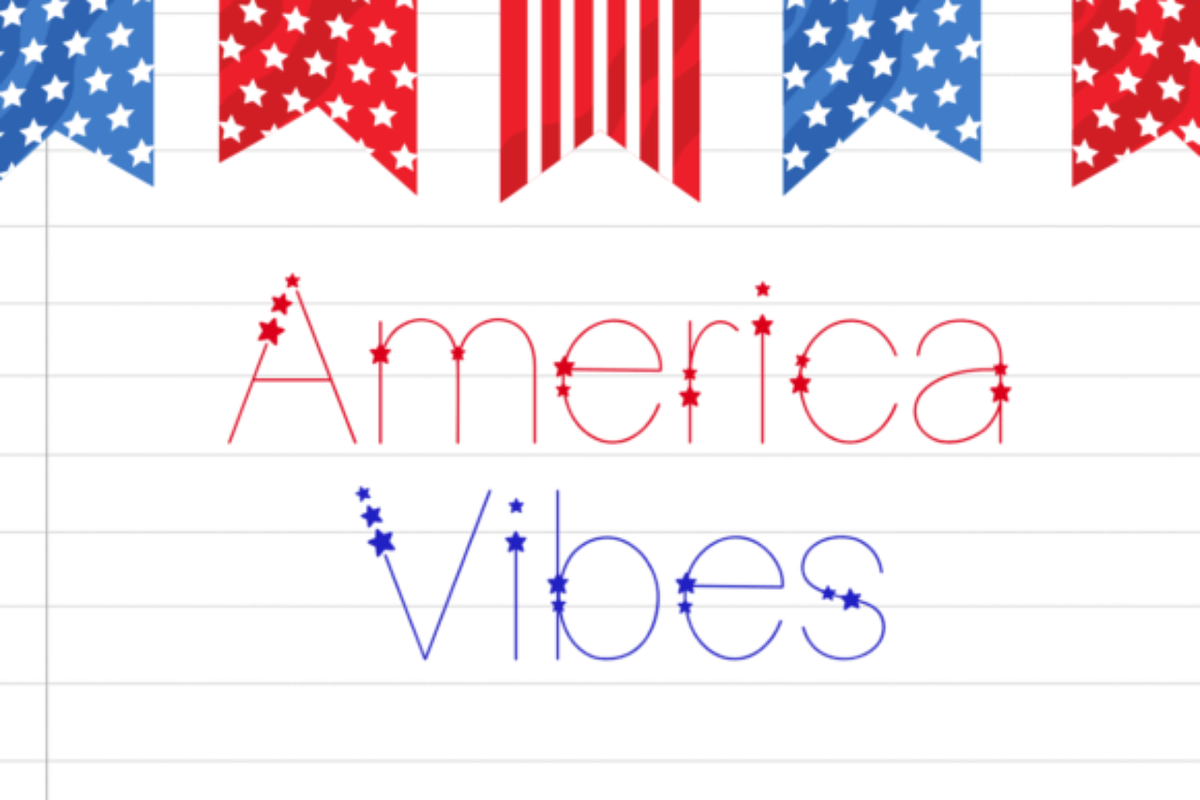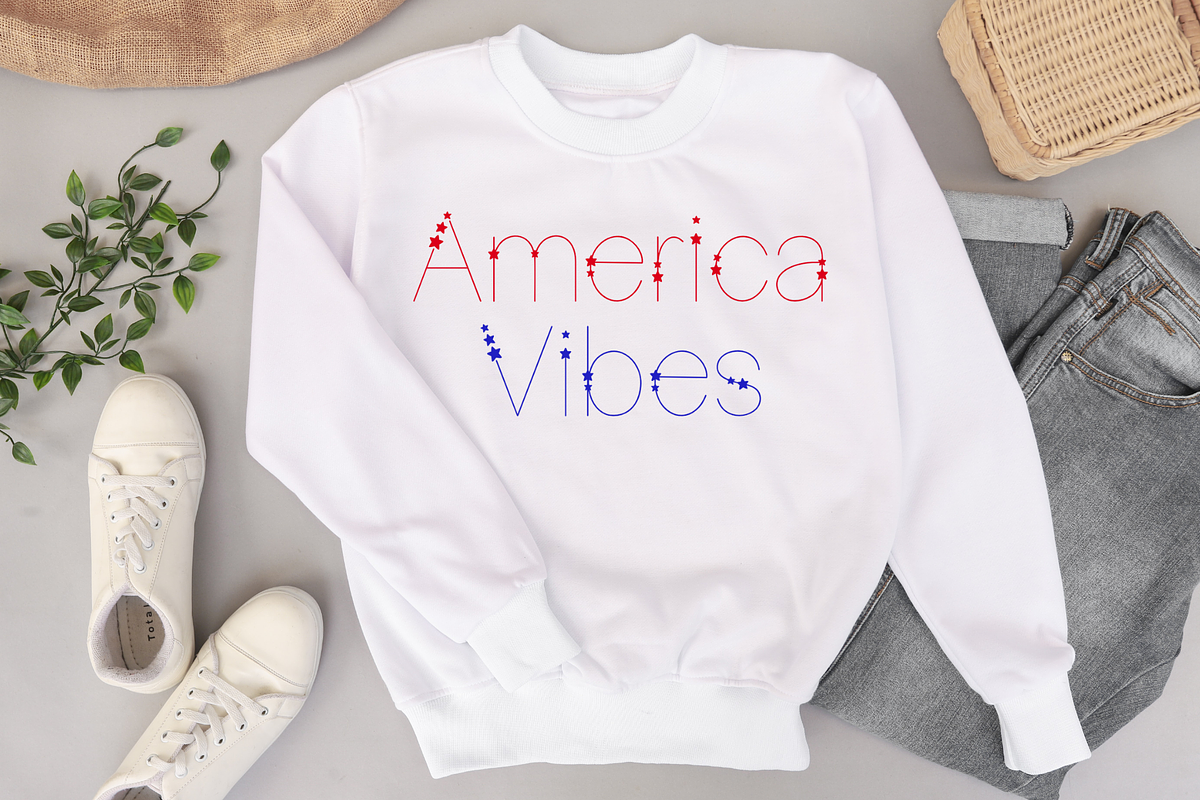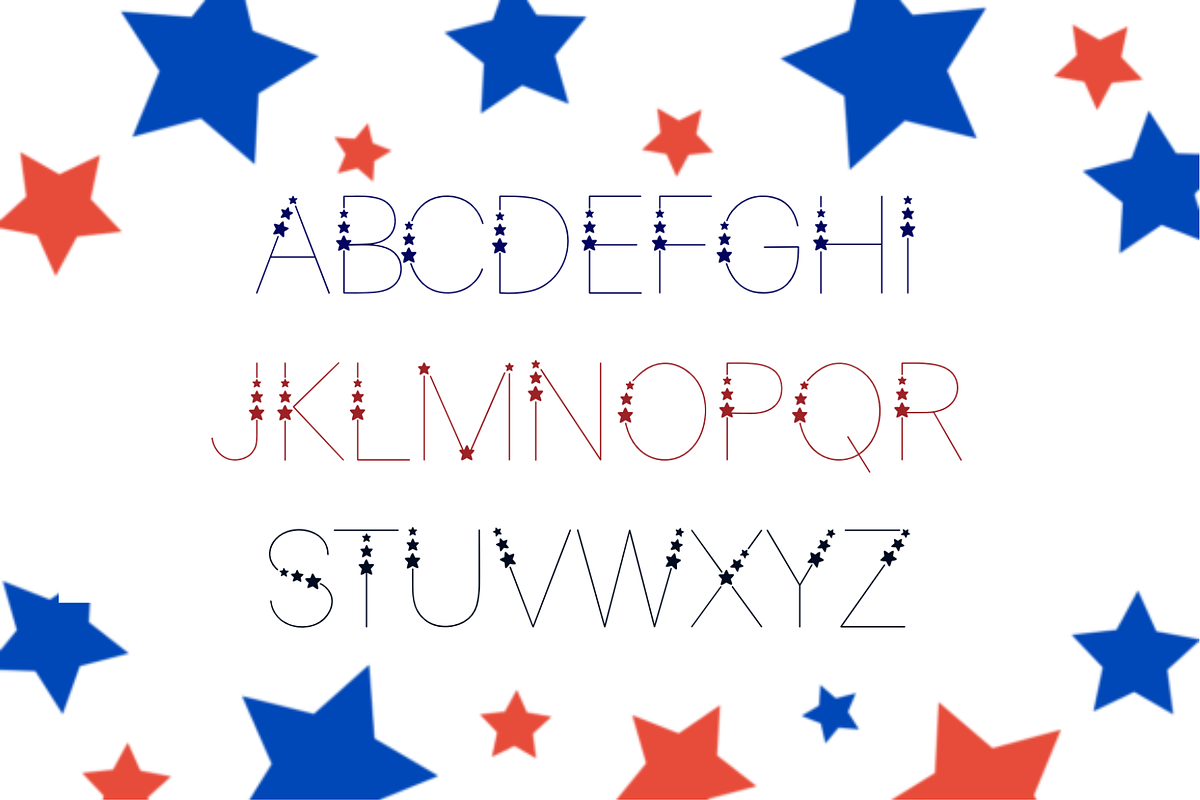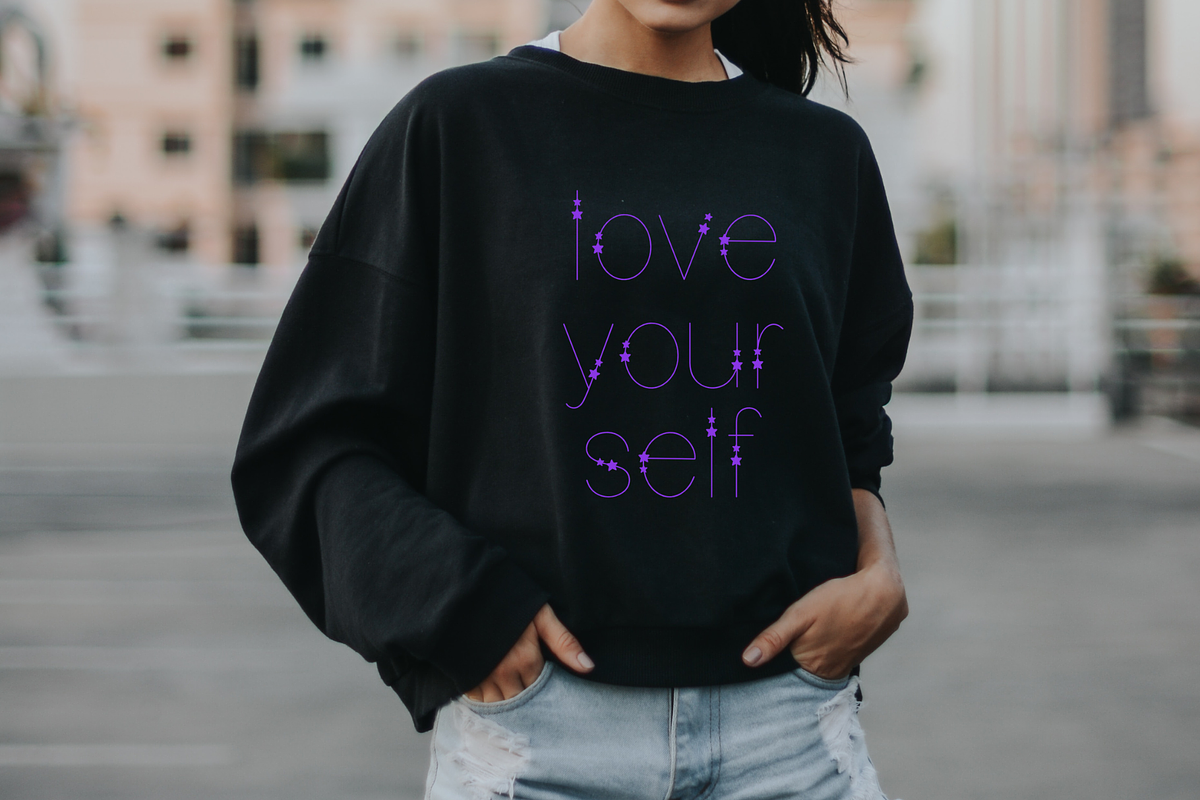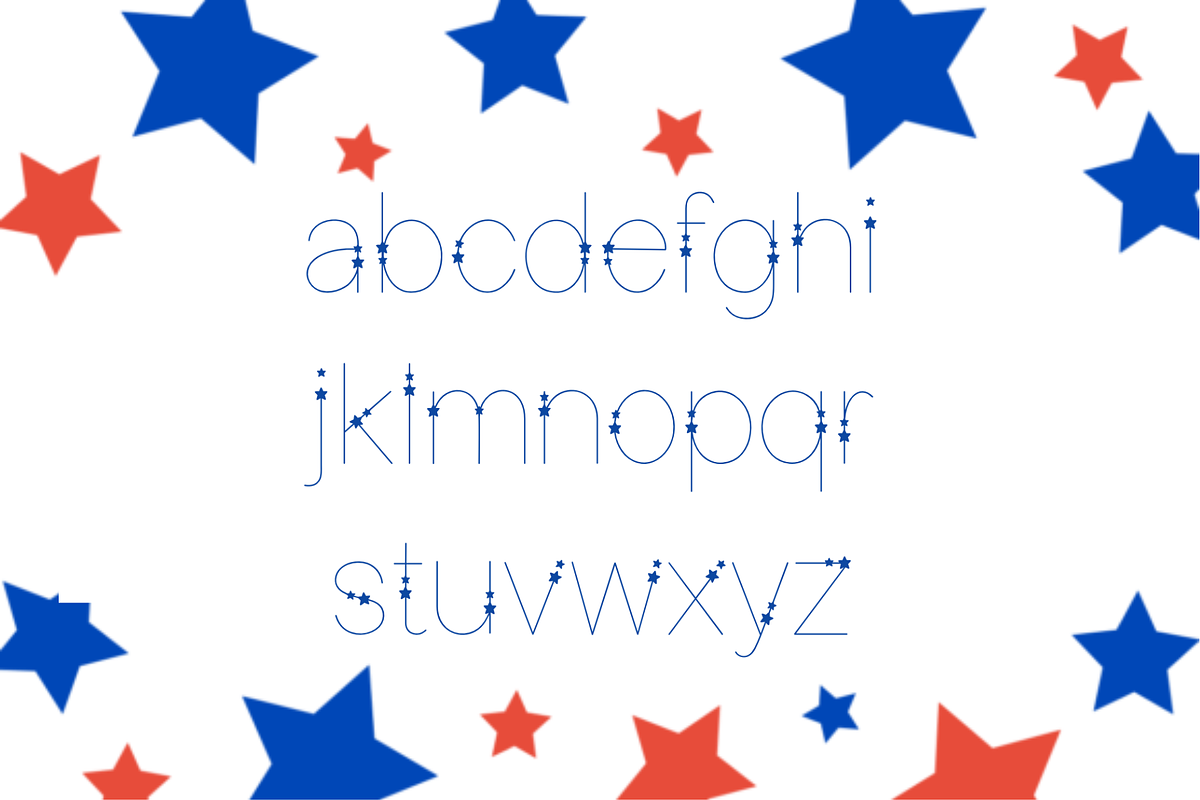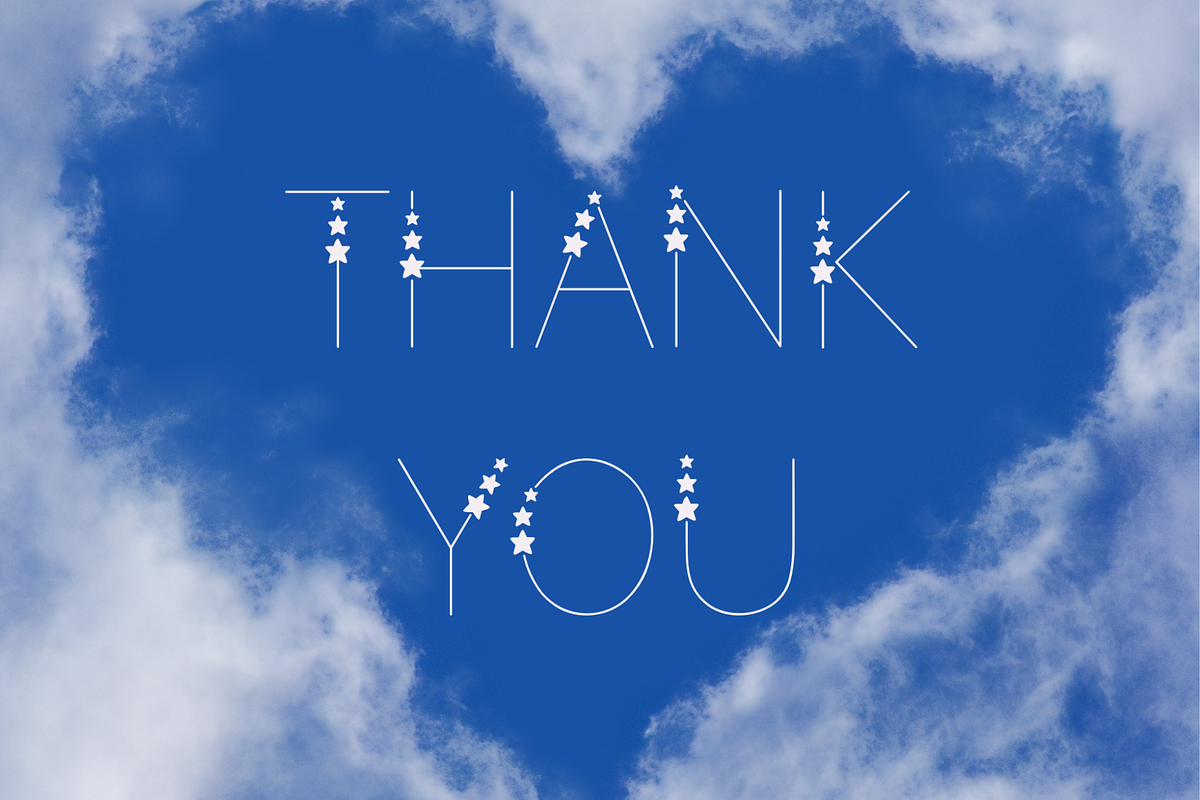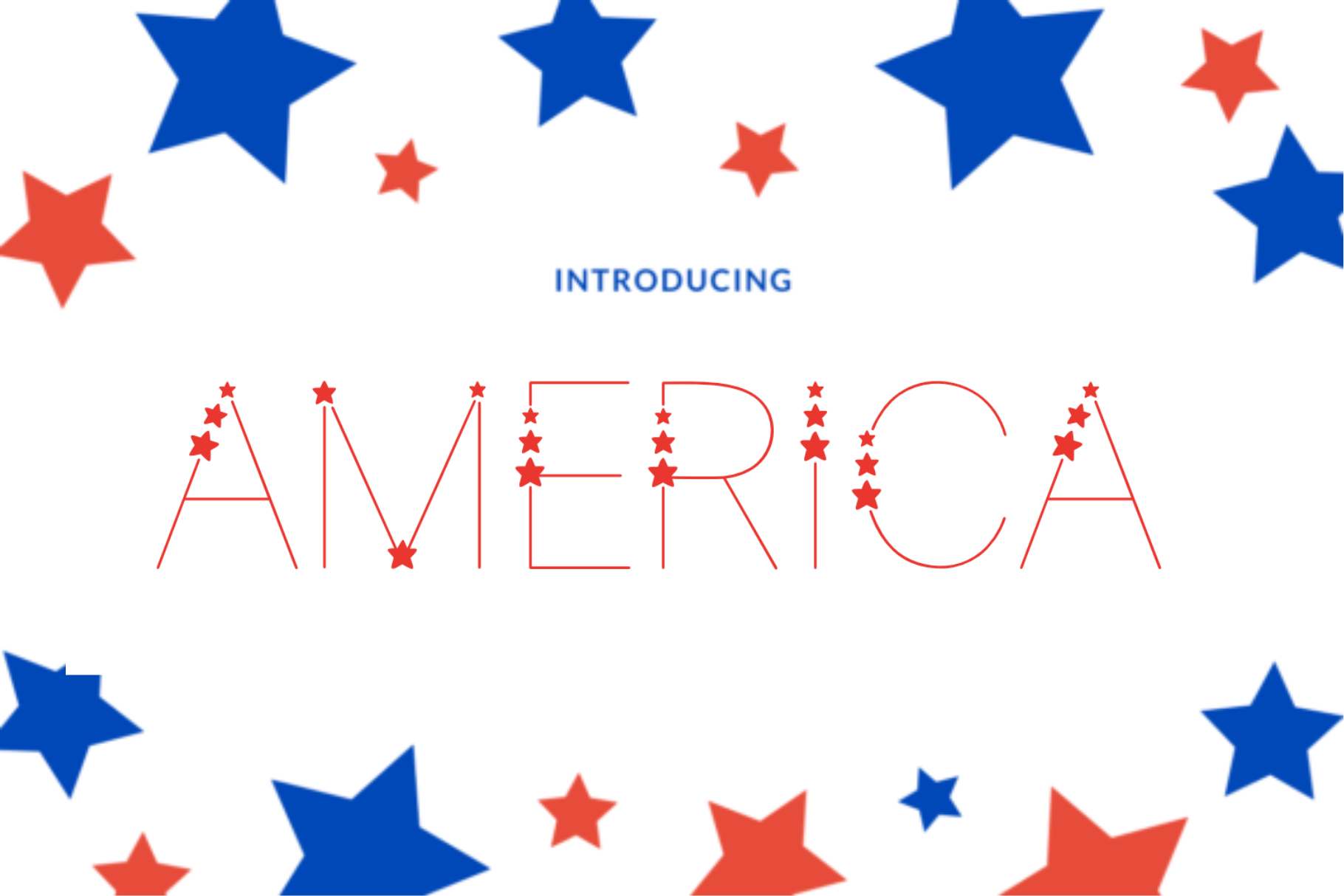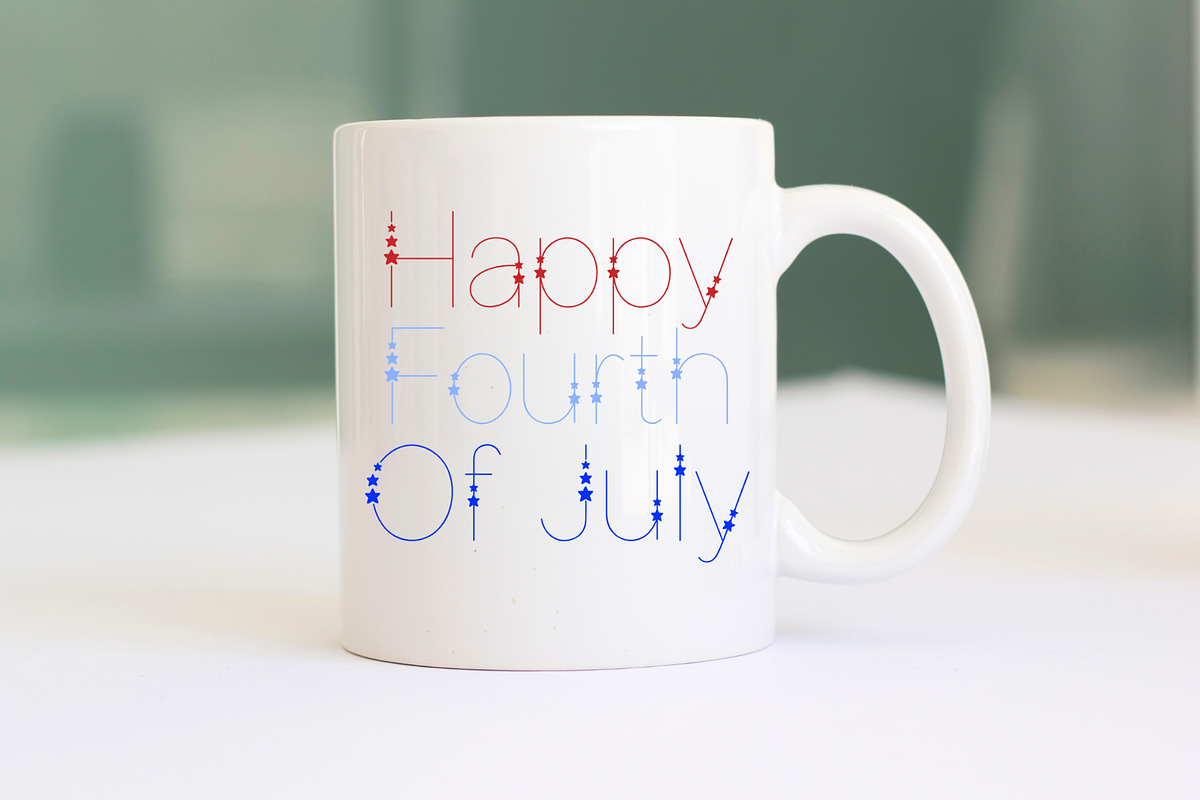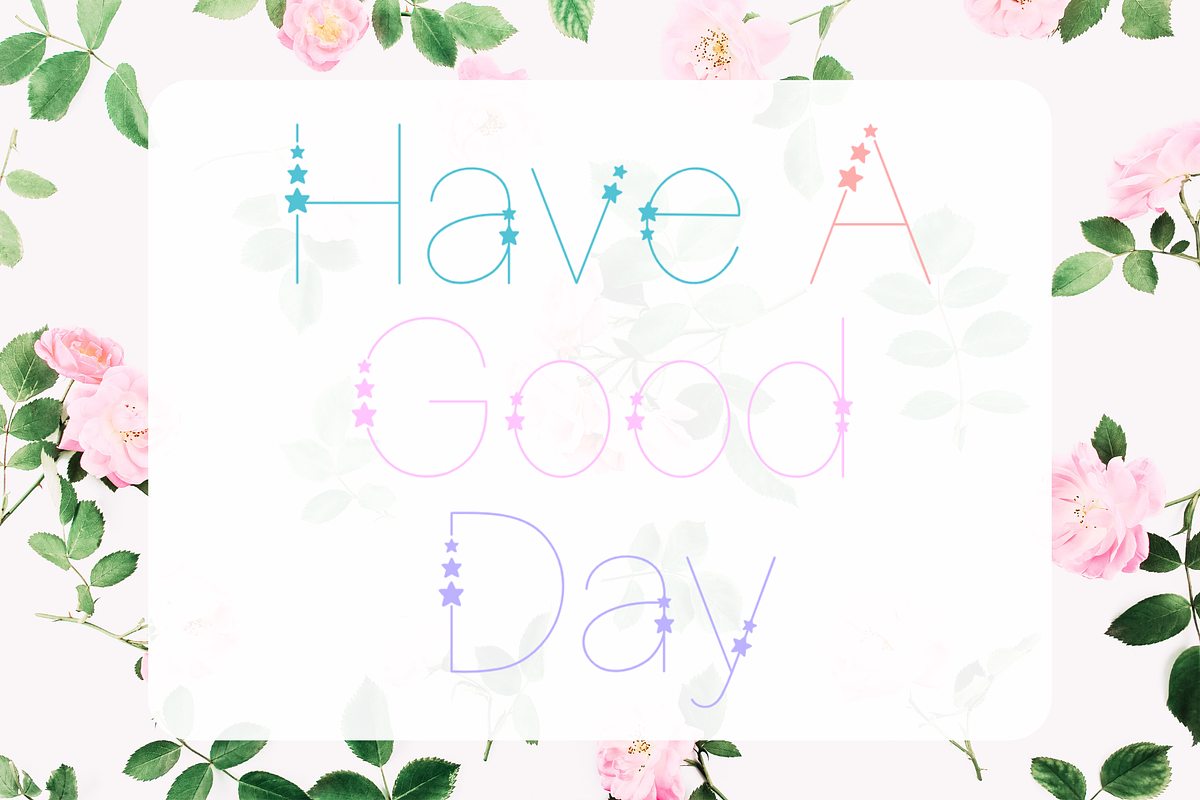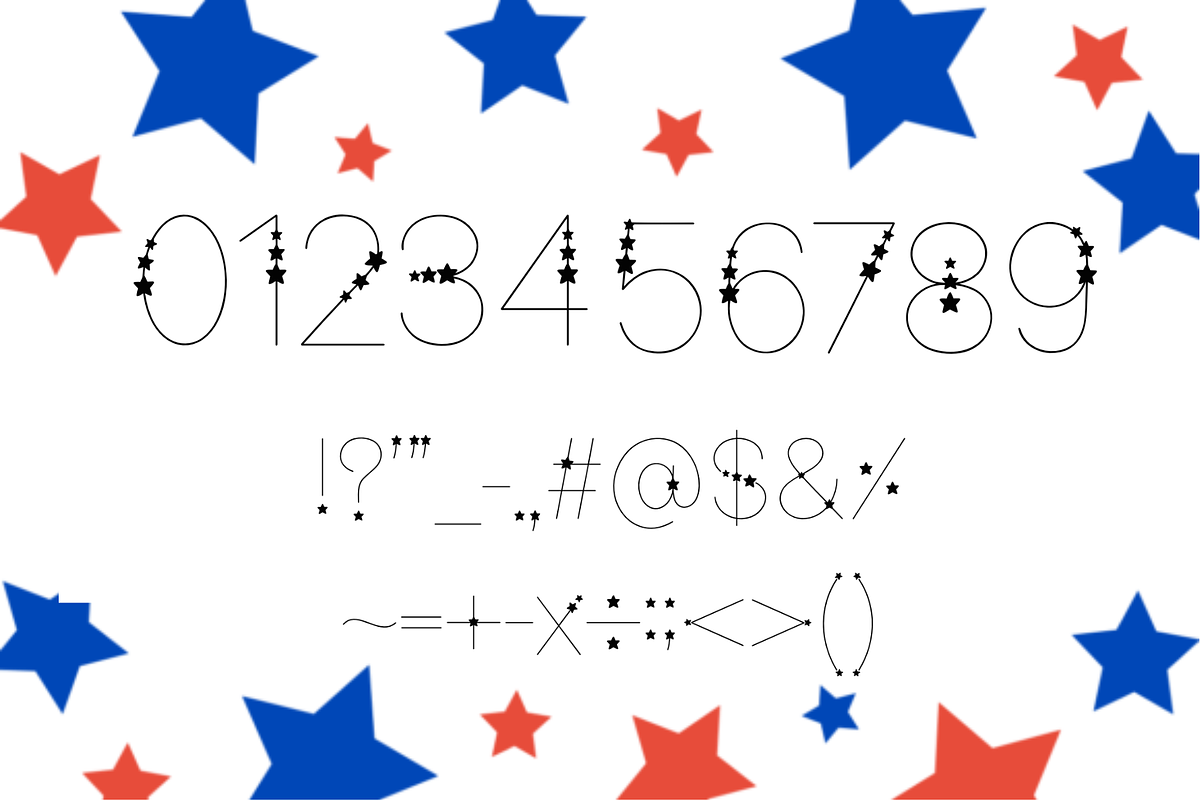
America Font
America is a cute and adorable decorative font suitable for designing T-shirts, tote bags, hats, stickers, wedding invitations, logos, cards, quotes, and more!